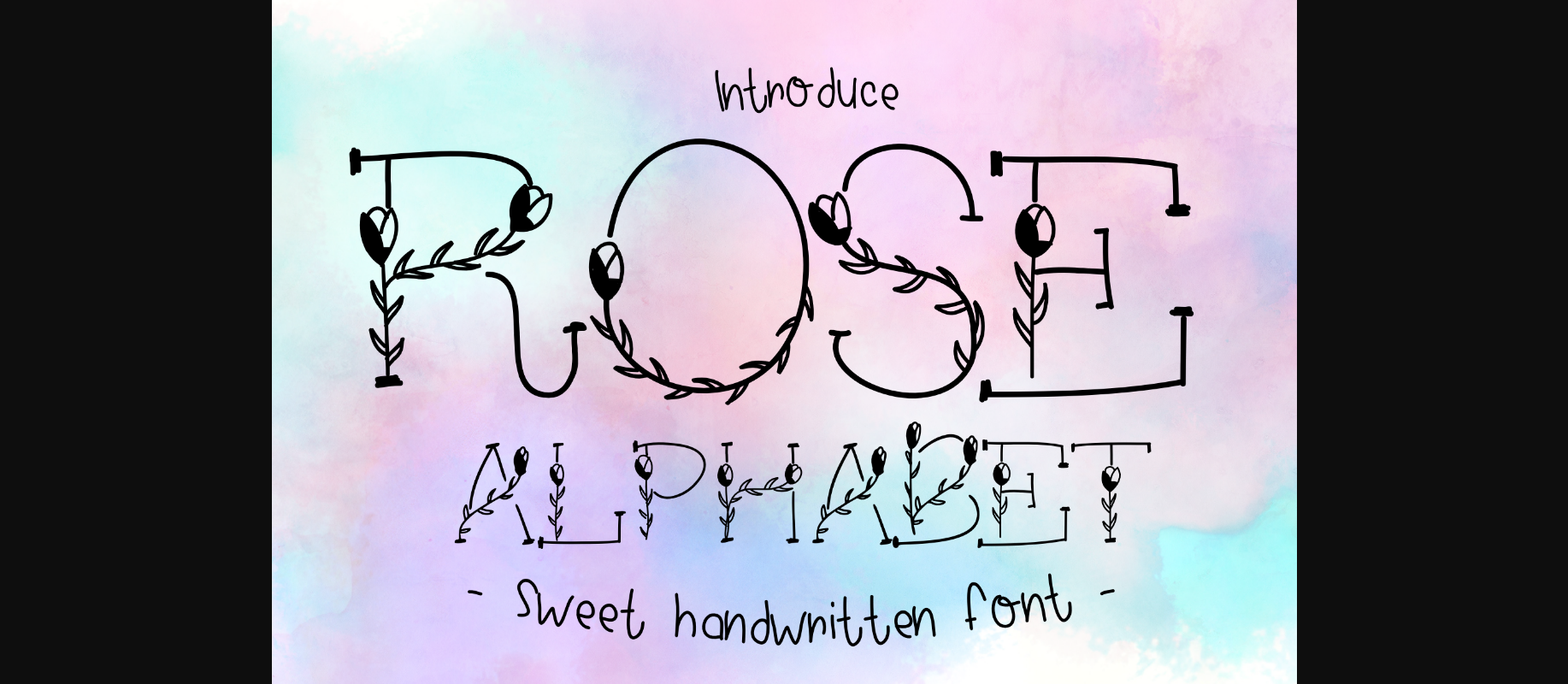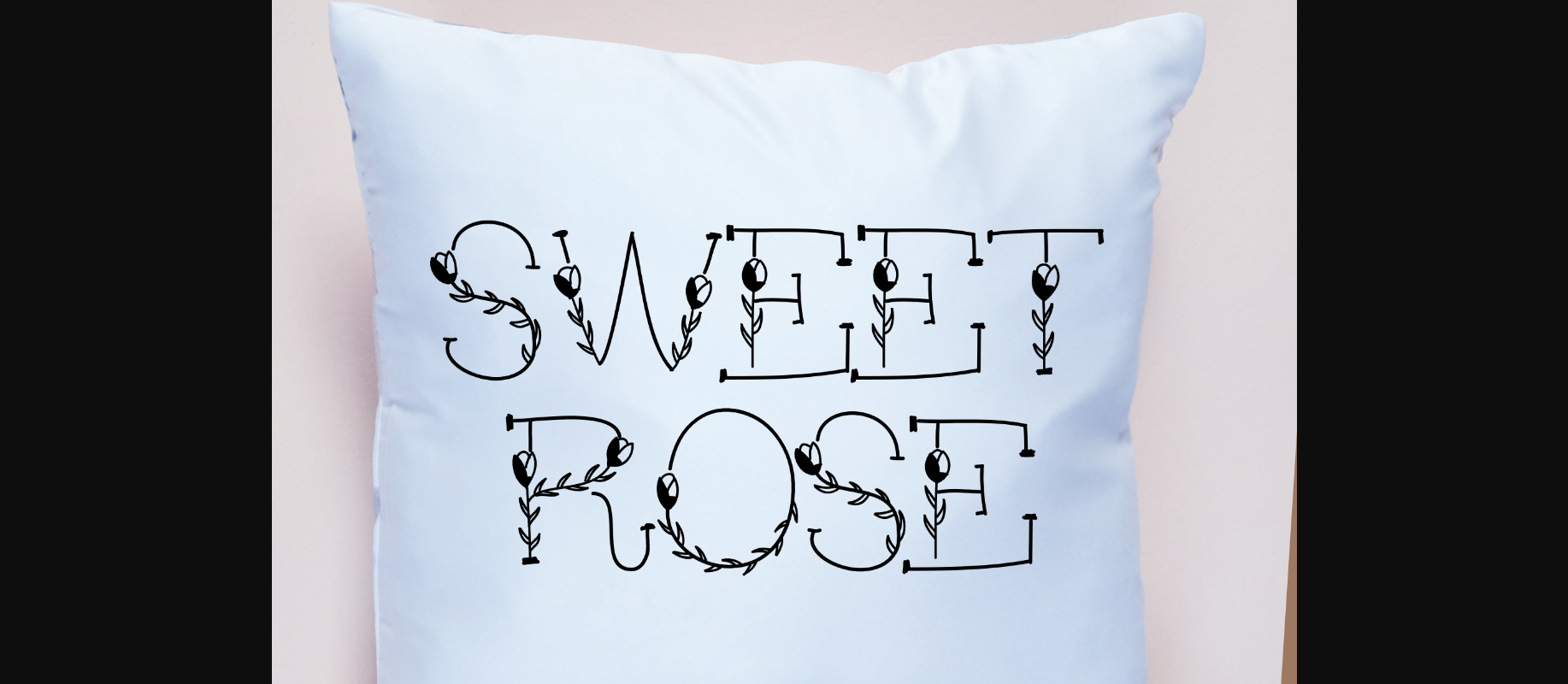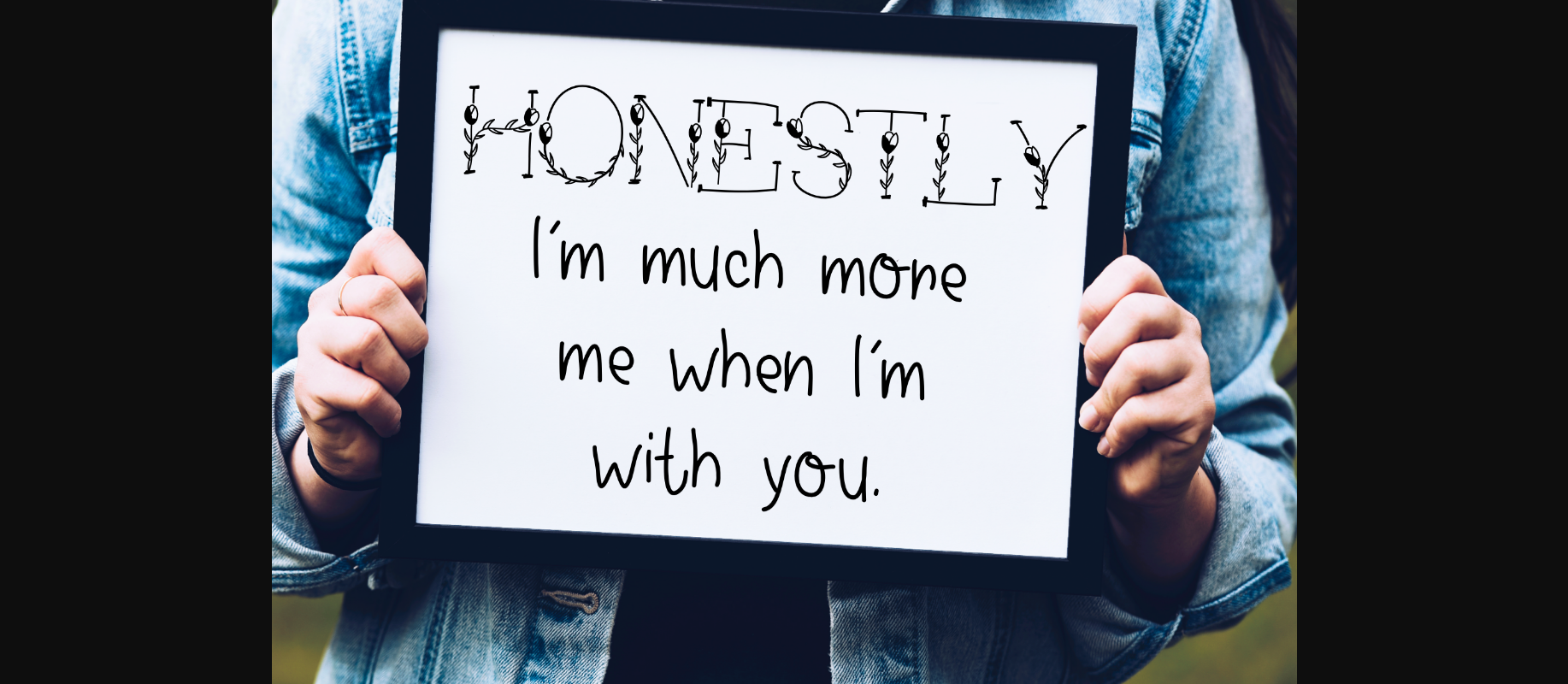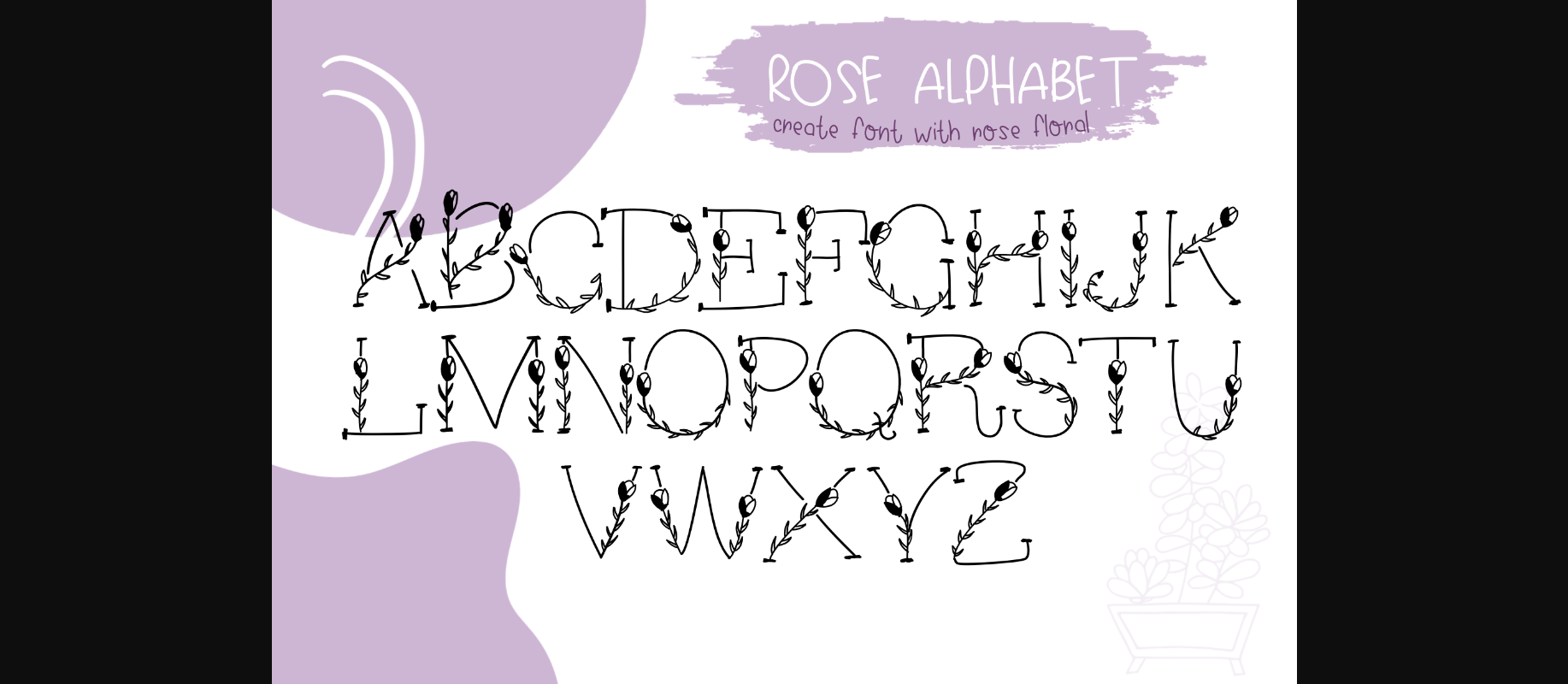
About Rose Alphabet Font
Rose Alphabet is a delicate and unique decorative font, featuring beautiful leaf ornaments. Fall in love with this magical font and bring your projects to the highest level!